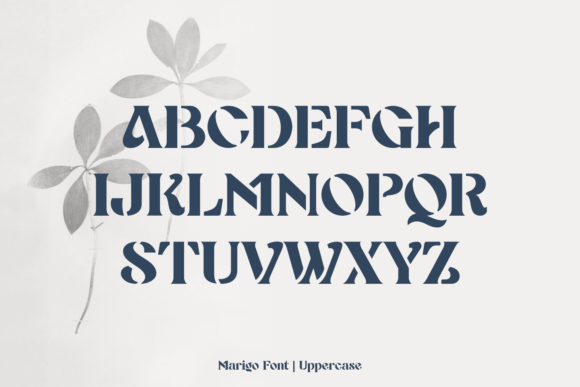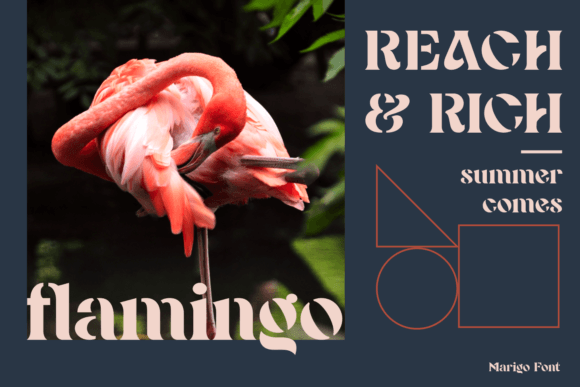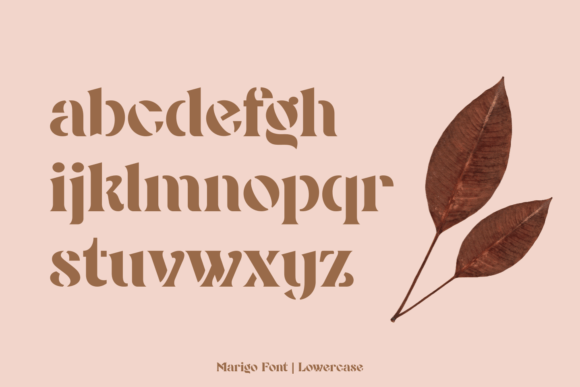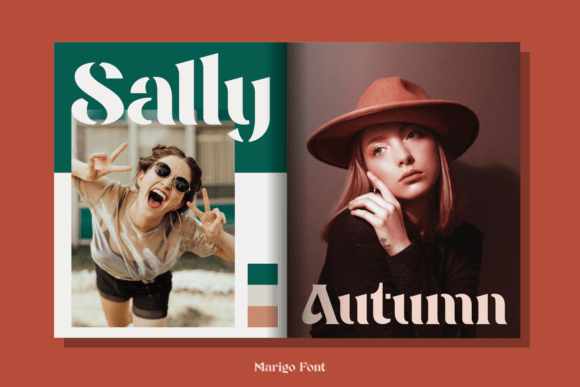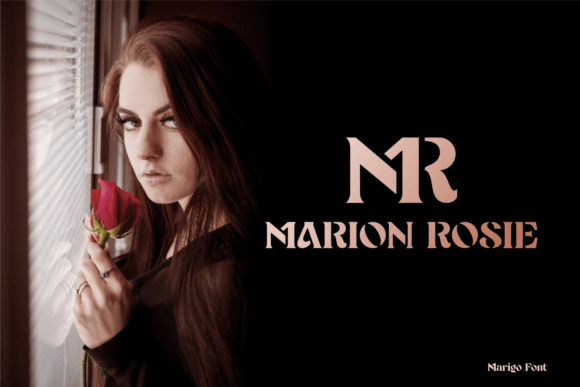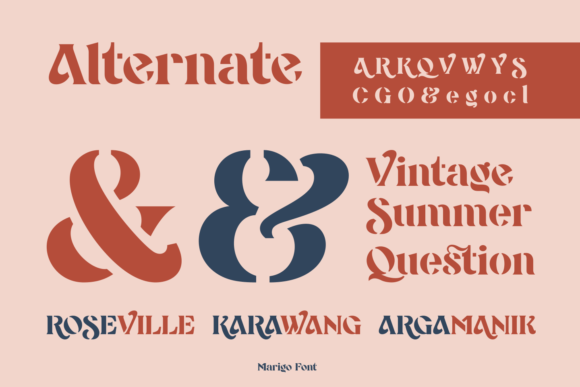
Unlocking Creative Potential with Marigo Font
As designers, we’ve all been there – staring at a blank canvas, searching for that elusive spark to bring our vision to life. It’s in these moments that the right design resource can make all the difference. For me, that spark came in the form of the Marigo Font – a semi-serif display font that has revolutionized the way I approach my creative projects.
With its unique shape and PUA encoding, Marigo Font offers unparalleled flexibility and ease of use. Whether you’re working on a high-quality branding project or a free download for a charity, this font is sure to elevate your design to new heights. Its transparent background and versatility make it an invaluable asset for designers of all levels, allowing you to focus on what really matters – bringing your creative vision to life.
So, what sets Marigo Font apart from the rest? Let’s dive in and explore the world of this incredible design resource.
Key Features of Marigo Font
- High-quality font with a transparent background, ideal for creative projects and designs that require a subtle look.
- Marigo Font is available in 5 different sizes, ranging from 8pt to 72pt, making it suitable for a variety of design applications.
- Features a high-resolution design (up to 300 DPI), ensuring crisp and clear text display in both print and digital formats.
- Designed to be versatile, Marigo Font can be used for a wide range of creative projects, from branding and advertising to editorial and publishing.
Honest Review: Marigo Font
As a designer, I’m always on the lookout for high-quality design resources to enhance my creative projects. The Marigo Font is one such resource that caught my attention, and I’m excited to share my honest review with you.
- High-quality typography: The Marigo Font features clean, elegant lines and a transparent background that makes it perfect for creating stunning visuals.
- Flexibility: The font can be used for a wide range of creative projects, from logos and branding to digital products and print materials.
While the Marigo Font is an excellent resource, I do have a few minor complaints. The font may not be suitable for all types of projects, particularly those that require a bold or dramatic font style.
- Limited font styles: The Marigo Font comes in a limited number of styles, which may not be enough for designers who require a wide range of font options.
In conclusion, the Marigo Font is a great design resource that I would highly recommend to designers working on creative projects. Its high-quality typography and transparent background make it perfect for a wide range of applications, and its free download feature is a definite plus. While it may have some limitations, the Marigo Font is an excellent choice for designers who want a professional-looking font without breaking the bank.
The Marigo Font is suitable for a variety of creative projects, including:
- Social media graphics and advertisements
- Wedding invitations and event graphics
Tips for Getting the Most Out of Marigo Font
To get the most out of the Marigo Font, experiment with different font sizes, colors, and styles. Use the font’s transparent background feature to create visually appealing designs.